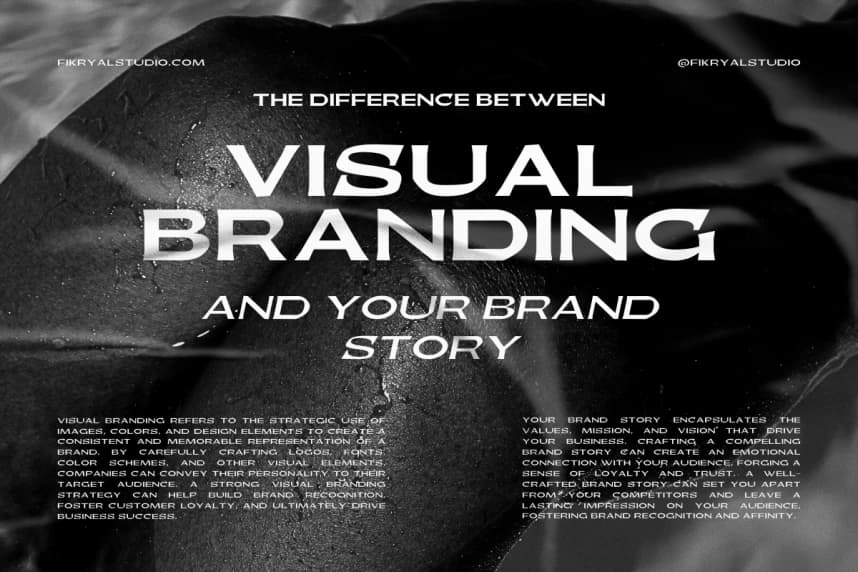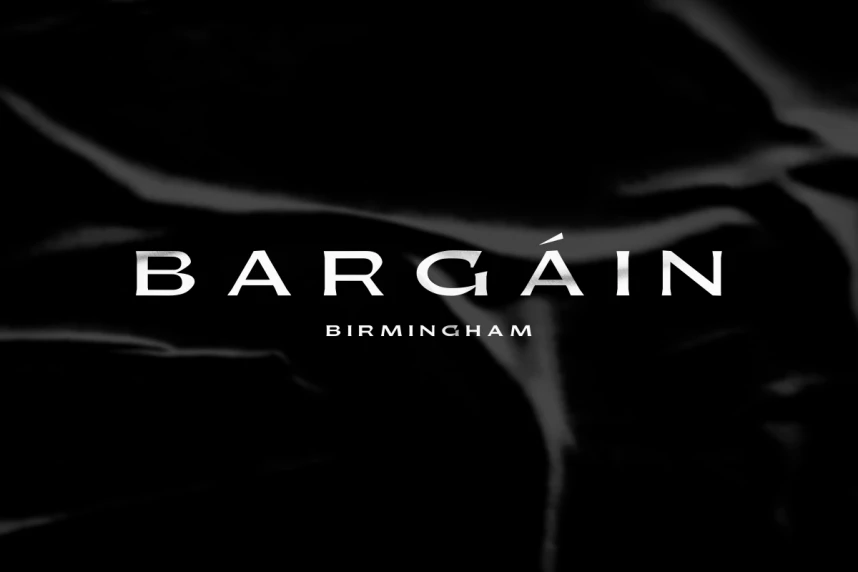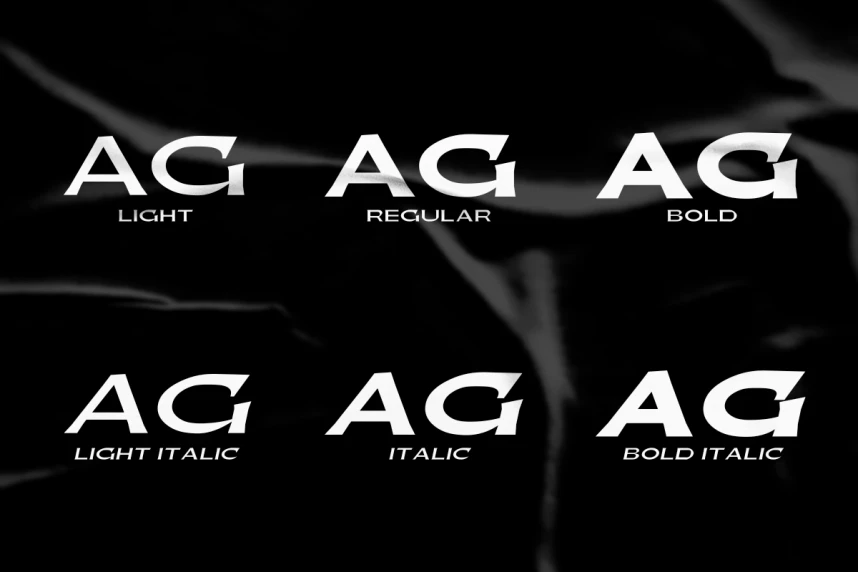
Bargum – Elegant Serif Font
Bargum - Elegant Serif Font is an elegant display serif font family designed to bring timeless sophistication to your creative projects. Featuring six styles—Light, Light Italic, Regular, Italic, Bold, and Bold Italic—this font family is ideal for projects that demand a refined and professional touch.